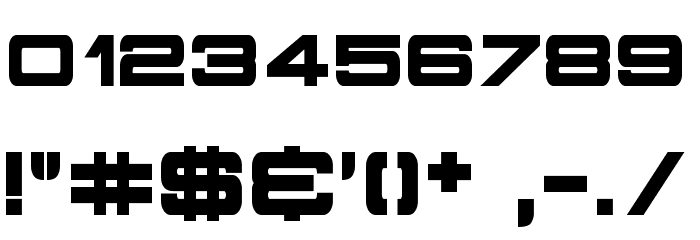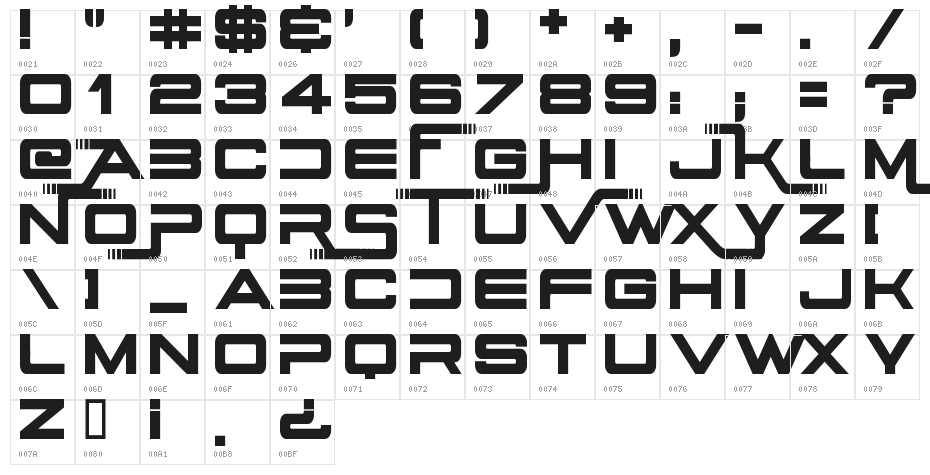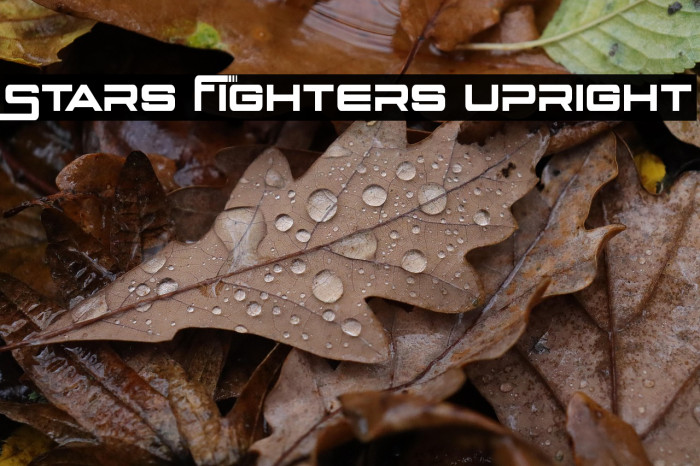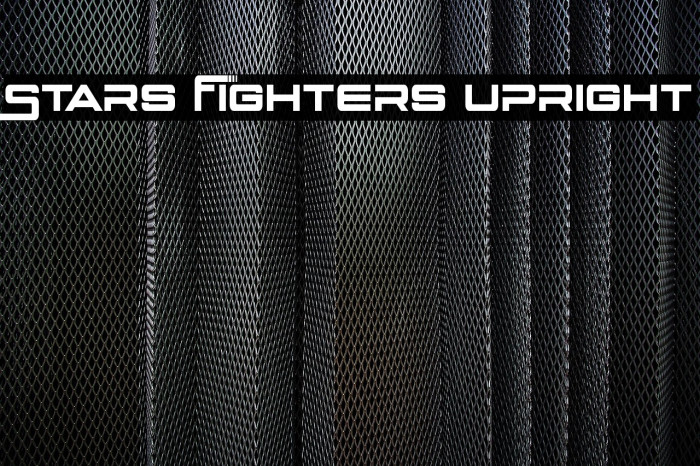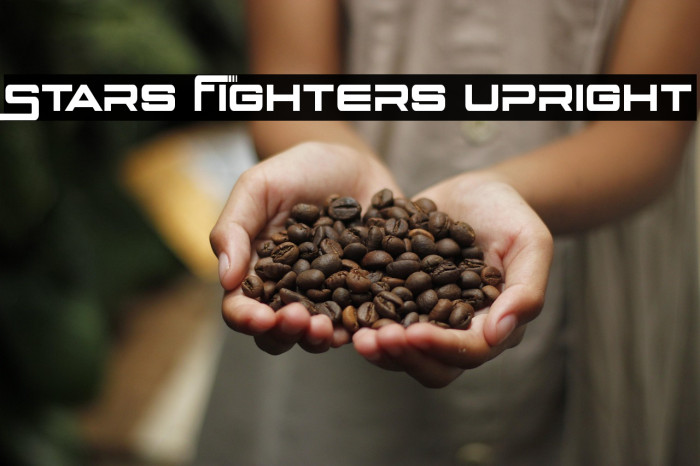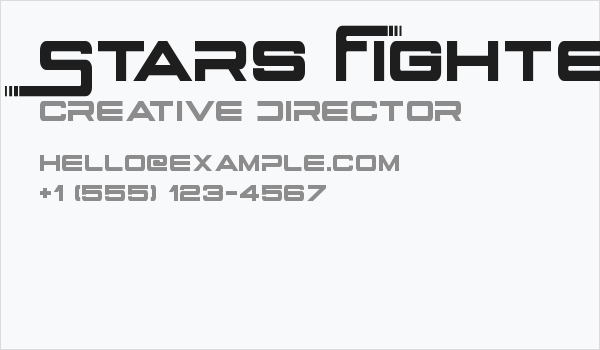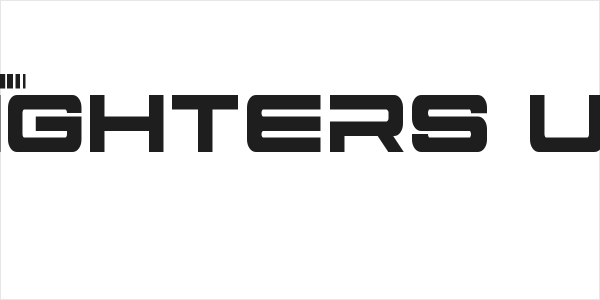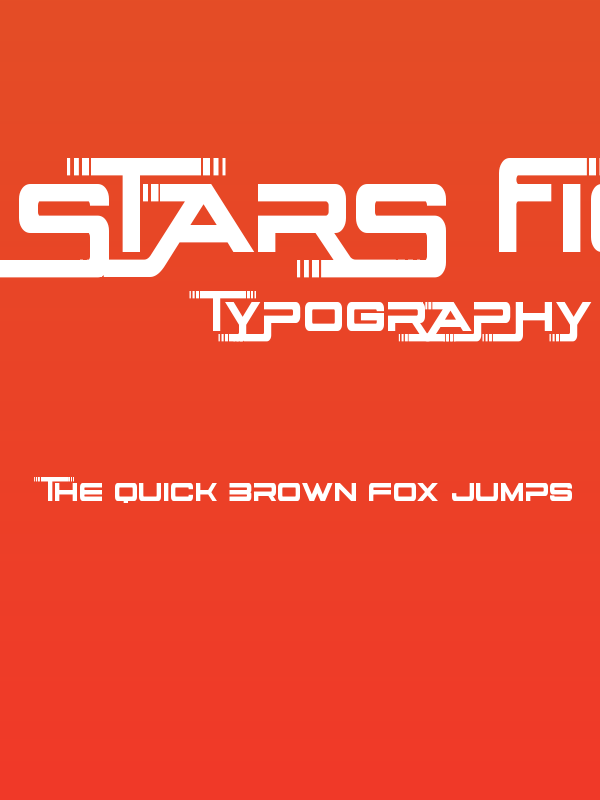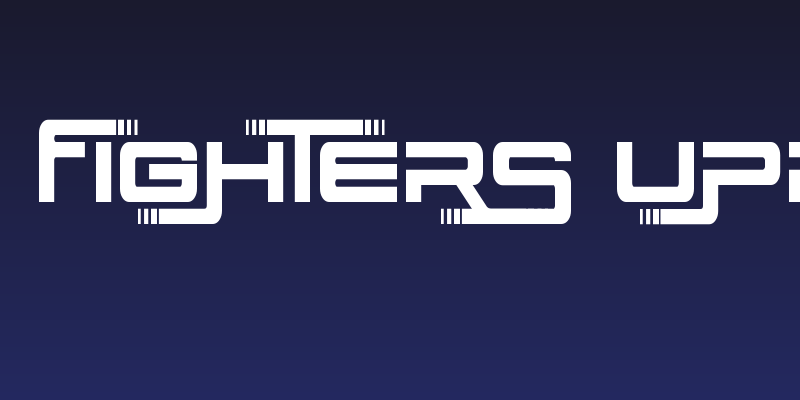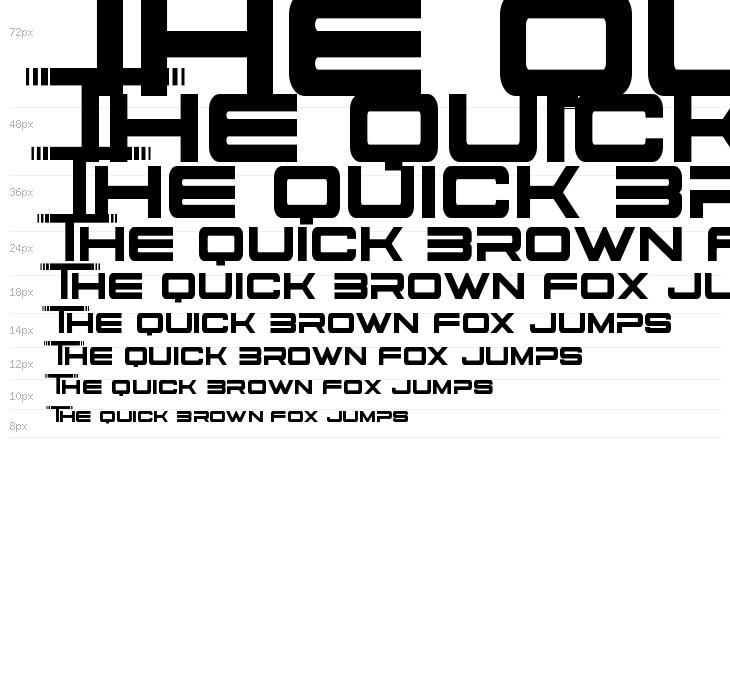
Stars Fighters Upright Font
Stars Fighters Upright Description
This font features a futuristic and bold design, characterized by its geometric shapes and unique cut-out details. The uppercase letters are distinct with angular lines and sharp edges, giving a sense of modernity and technological advancement. The lowercase letters maintain a consistent style, complementing the uppercase with similar angularity and precision. Numbers and special characters follow the same design principles, ensuring uniformity across all glyphs. This font is ideal for projects that require a strong, modern aesthetic, such as sci-fi themes or tech-related branding.
Proposed ProjectsIdeal for sci-fi themes, tech branding, video game titles, and futuristic posters.